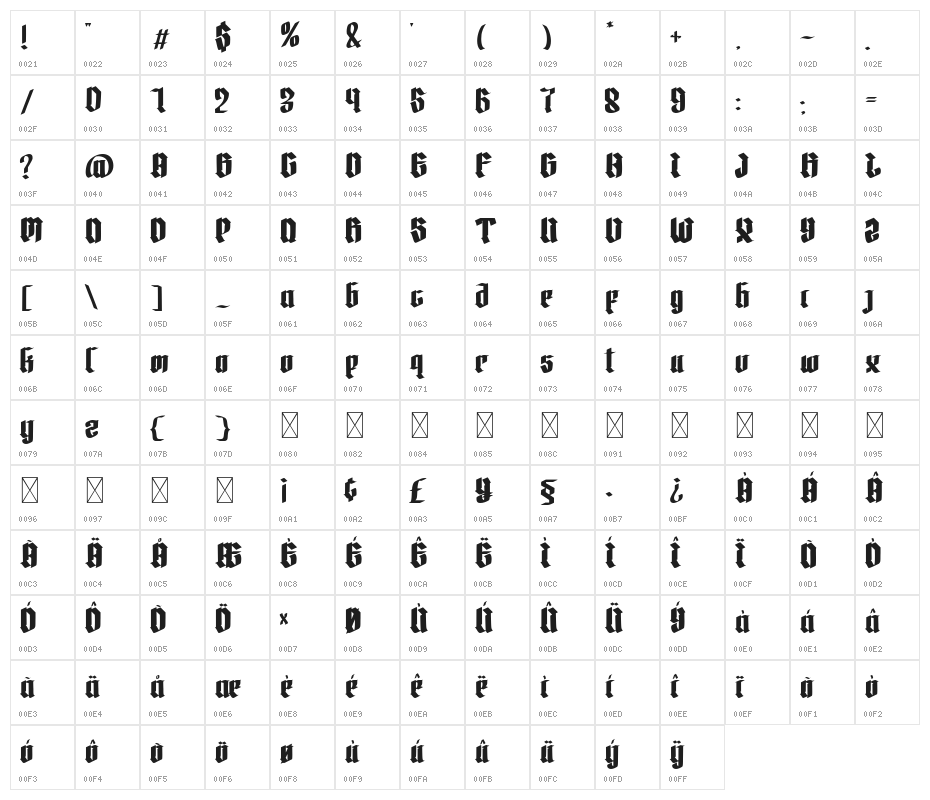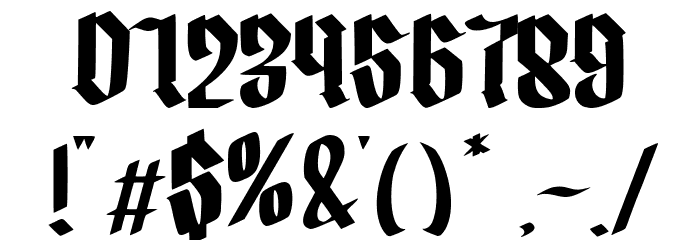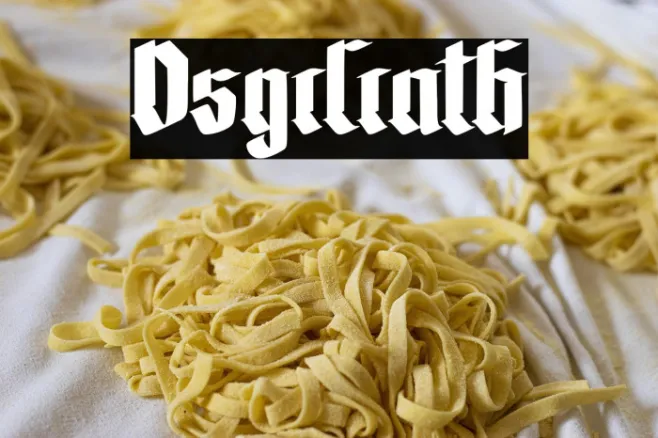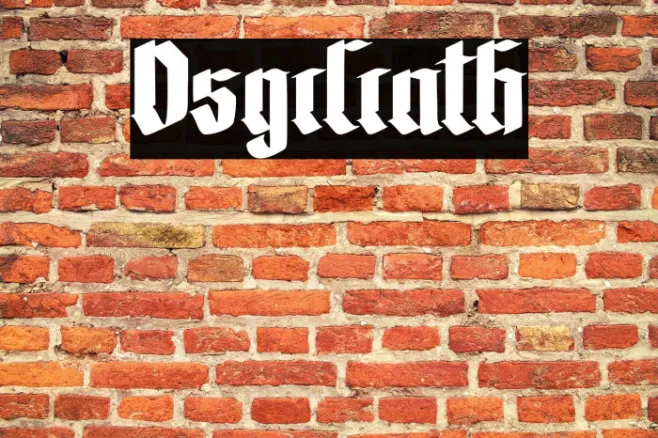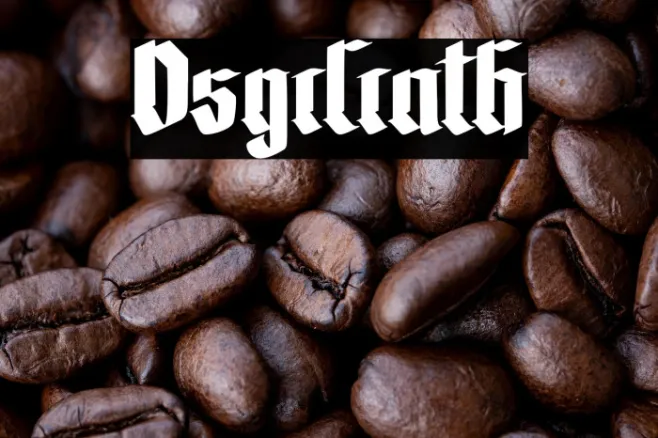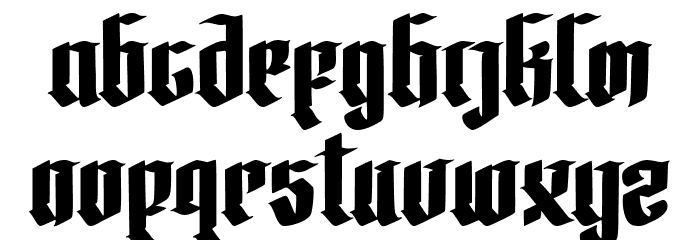
Osgiliath Font
Osgiliath Description
This font embodies a bold and dramatic blackletter style, characterized by its sharp, angular strokes and intricate detailing. The uppercase letters are particularly striking, with a strong presence and a gothic flair that commands attention. The lowercase letters maintain the same level of detail and complexity, ensuring consistency throughout the typeface. Numbers and special characters are crafted with the same attention to detail, making them suitable for a variety of uses. The overall appearance is reminiscent of medieval script, offering a sense of historical depth and elegance.
| Proposed Projects | Ideal for projects requiring a historical or gothic aesthetic, such as book covers, posters, or themed event invitations. |